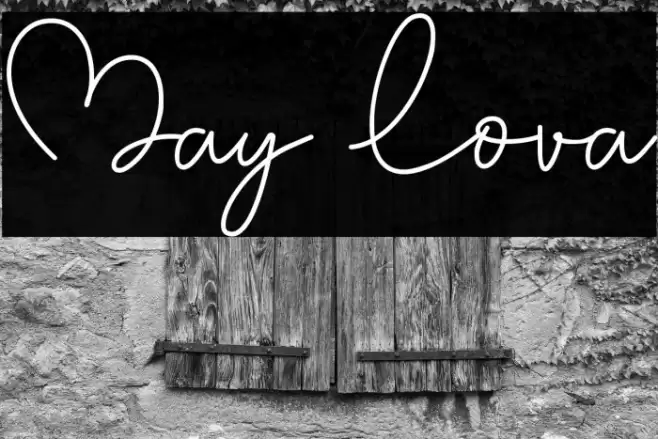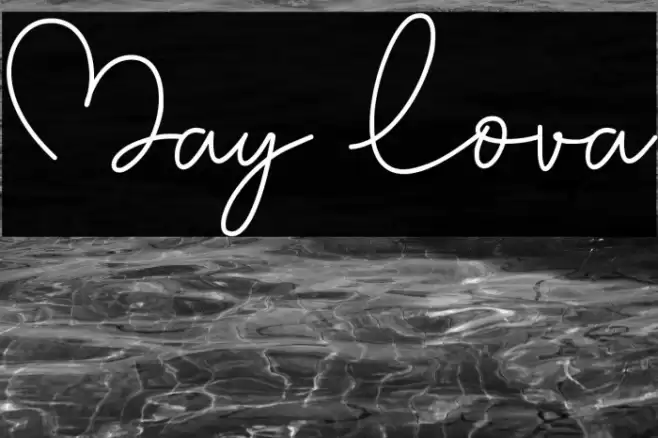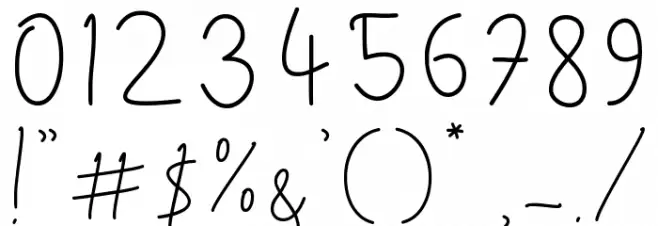
May Lova Font
May Lova Description
This font features a playful and elegant handwritten style, characterized by smooth, flowing lines and a casual, yet sophisticated appearance. The uppercase letters are distinct with a slight slant, giving them a dynamic and lively feel. The lowercase letters maintain a consistent flow, enhancing readability while retaining a personal touch. The numerals are clear and well-defined, complementing the overall aesthetic. Special characters are thoughtfully designed, maintaining the font's cohesive look. This font is versatile, suitable for both formal and informal contexts, adding a personal and creative flair to any project.
A playful and elegant handwritten font with smooth, flowing lines from Regular fonts.
- Font: May Lova
- Proposed Projects: Ideal for wedding invitations, greeting cards, personal branding, and creative projects requiring a personal touch.
- Use Case: Logos, Invitations, Personal Branding